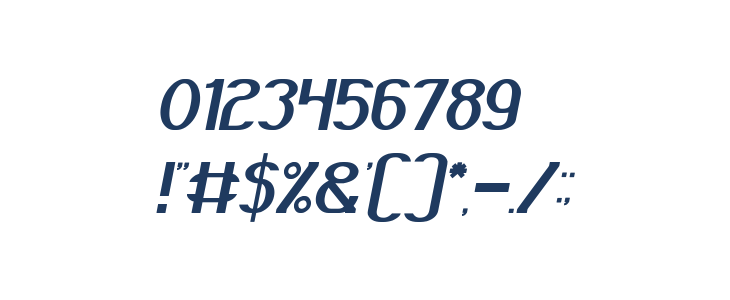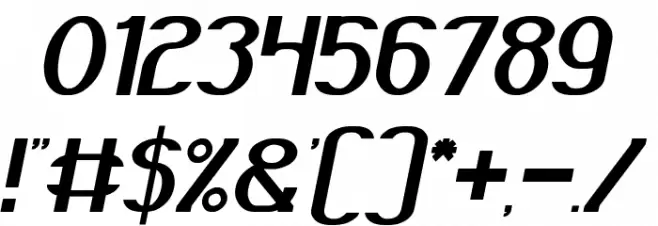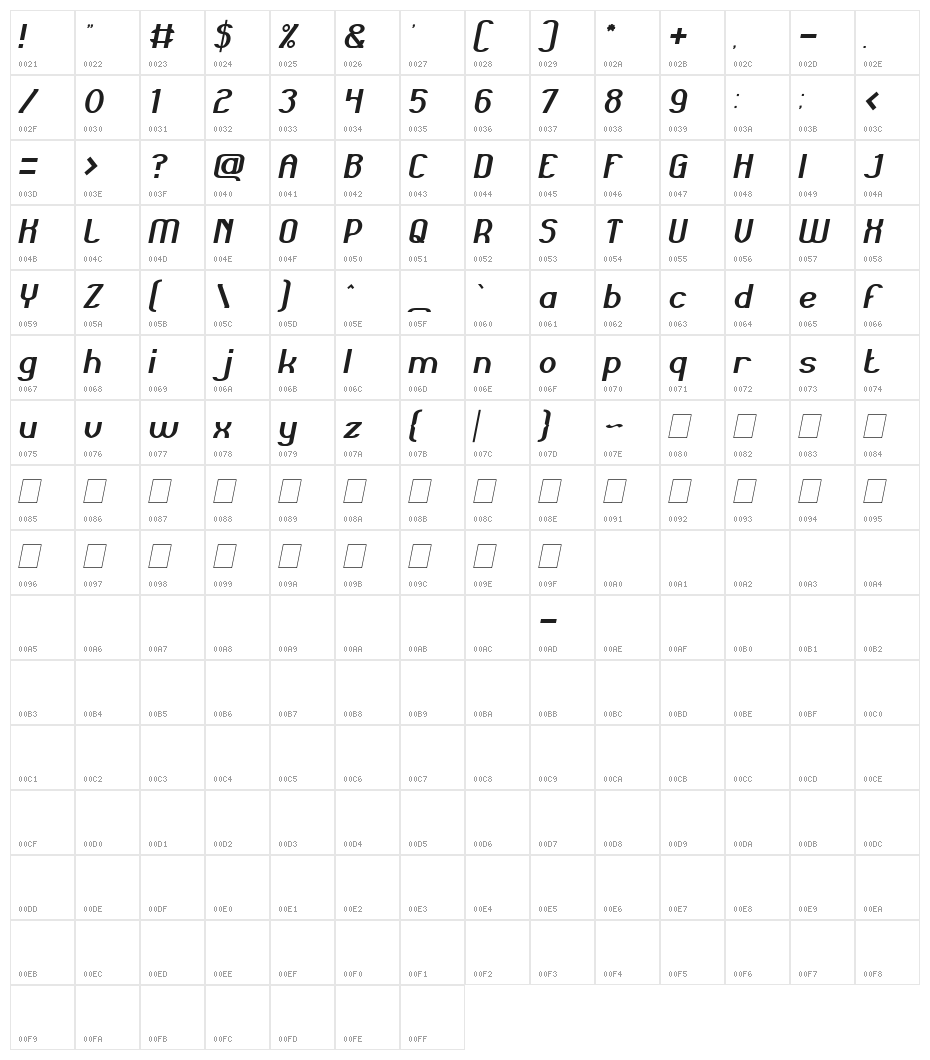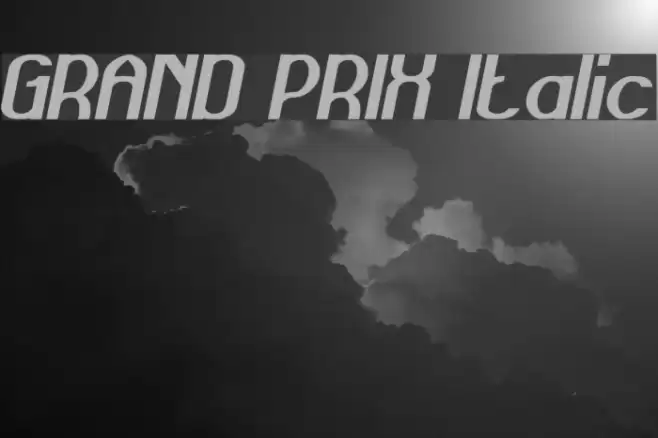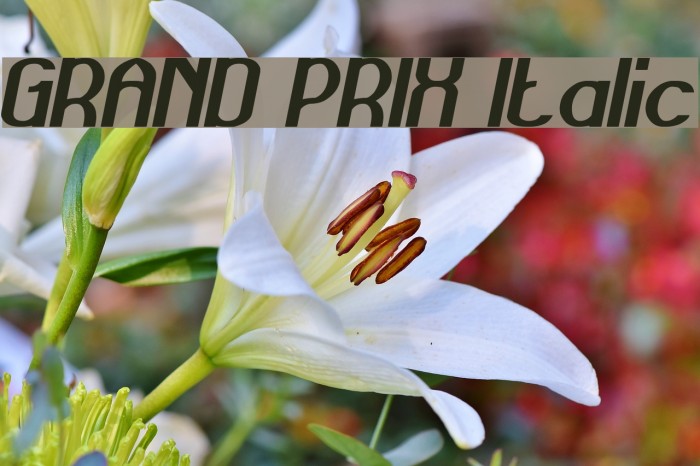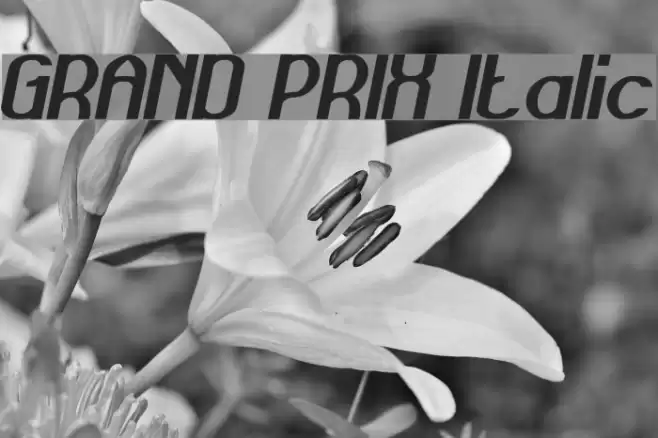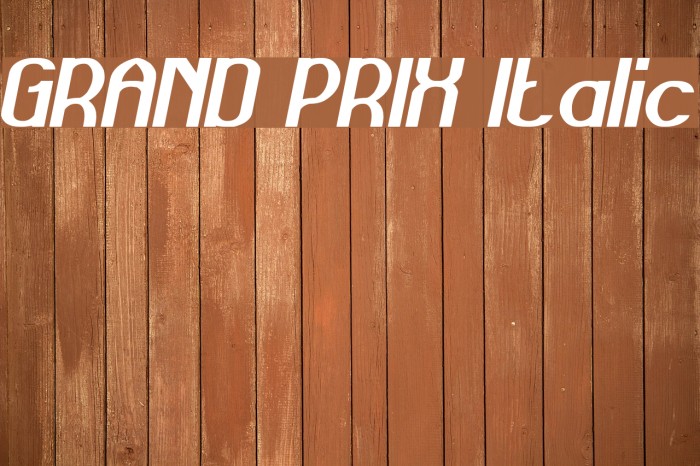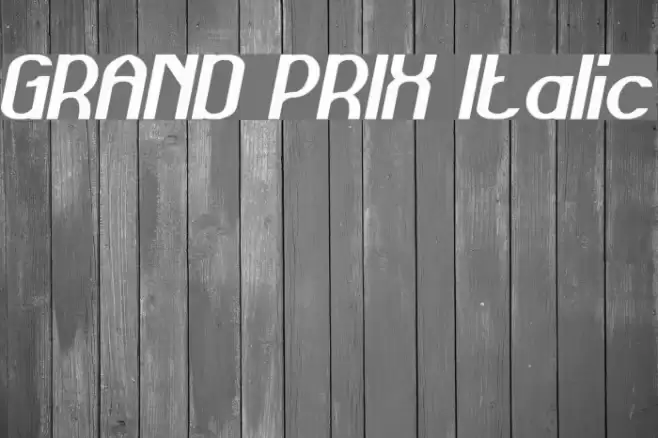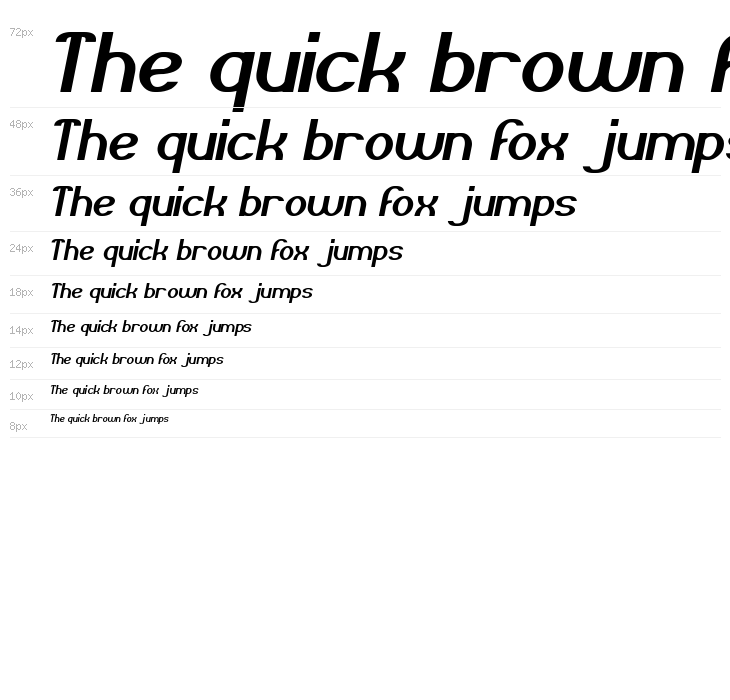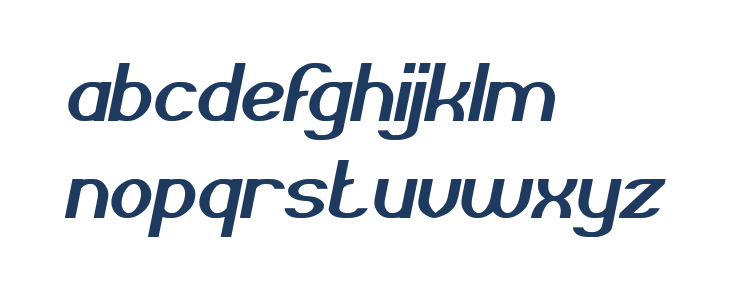
GRAND PRIX Italic Font
GRAND PRIX Italic Description
This font features a dynamic and energetic style, characterized by its italicized and slightly condensed letterforms. The strokes are smooth and fluid, giving a sense of motion and speed. The uppercase letters are bold and assertive, while the lowercase letters maintain a consistent flow, enhancing readability. The numerals are distinct and well-proportioned, matching the overall aesthetic. Special characters are designed with the same attention to detail, ensuring uniformity across all glyphs. This font's design is ideal for projects that require a sense of movement and modernity.